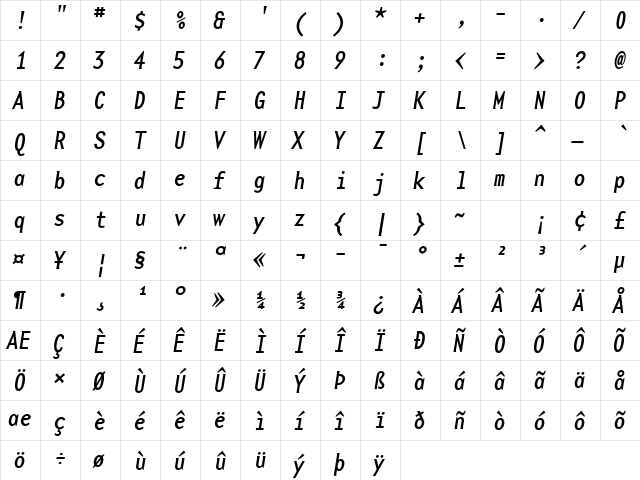
BaseMonoReg-Narrow RomanItalic
Design Context for BaseMonoReg-Narrow Typeface
BaseMonoReg-Narrow brings the precise, column-aligned rhythm of monospaced typography to designs that value technical clarity and systematic order. Its italic angle brings a sense of urgency and motion to the letterforms.
A natural fit for code editors, technical documentation, developer-focused branding, and terminal-inspired UI.
Pro Tip: Pair BaseMonoReg-Narrow with a proportional sans for UI contexts where code-style labels and regular body copy need to coexist.